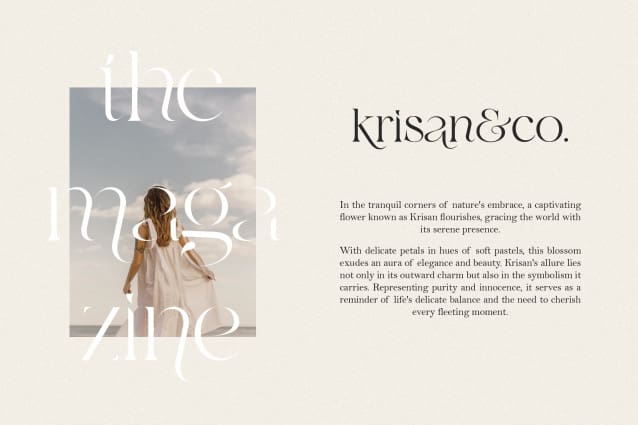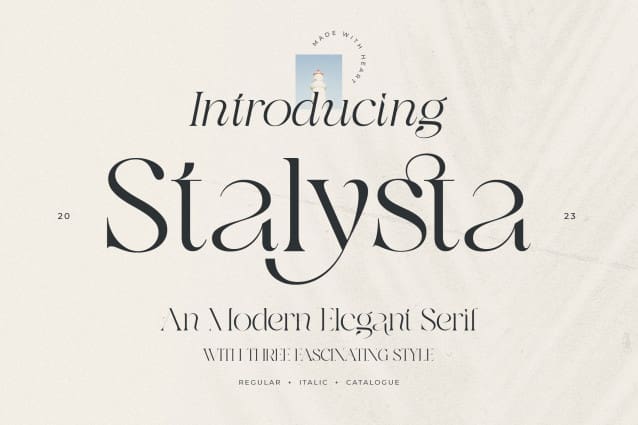
Stalysta Font
Stalysta Font is an editorial serif font (regular and italic) with smooth curves and elegant look. It’s gorgeous in all caps, but the lowercase letters can really hold their own. Stalysta is perfect for headlines, editorial design, monograms, branding, logos, poster design, and more.